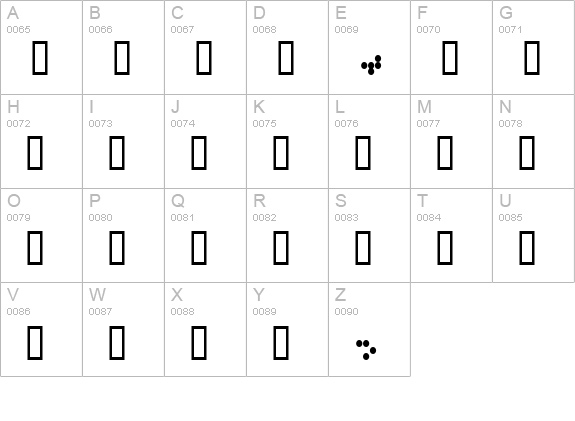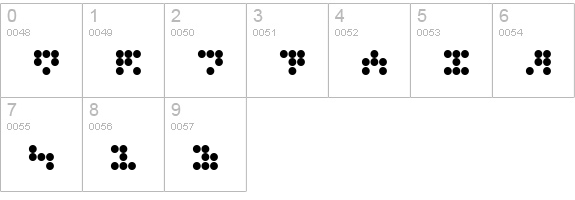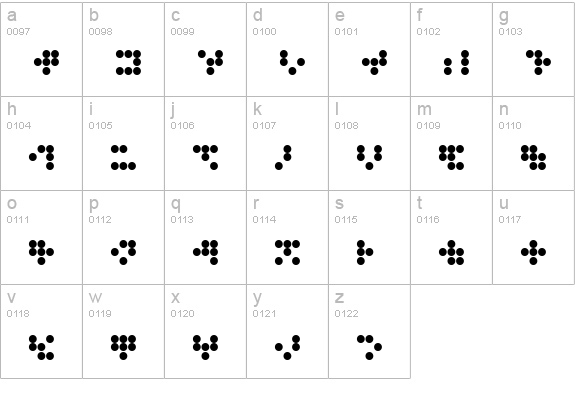
CIRCULAR9 KANA J Font Details
CIRCULAR9 KANA J font is a sleek and modern typeface that combines elegance with readability. Its clean lines and rounded edges give it a sophisticated and contemporary look, making it perfect for a wide range of design projects. The unique Kana characters add a touch of cultural flair, making this font stand out from the rest. Best of all, CIRCULAR9 KANA J font is completely free to use and download. You can easily access this stunning font at FontsMarket.com without any cost. Whether you're working on a professional design project or just looking to add a fresh touch to your personal creations, CIRCULAR9 KANA J font is a versatile and stylish choice that won't break the bank. Download it today and elevate your designs with this beautiful typeface.